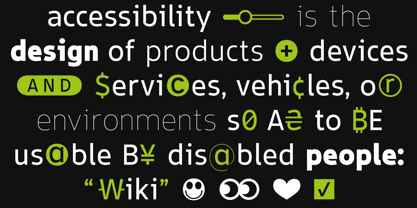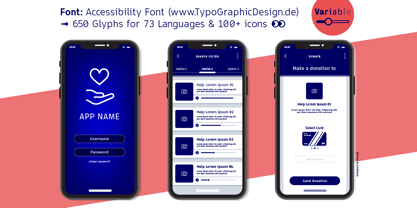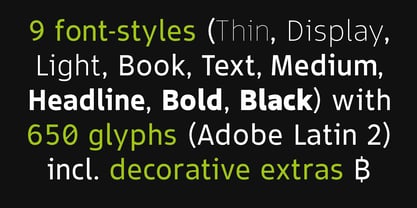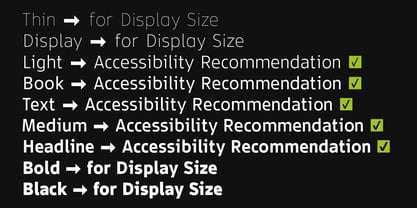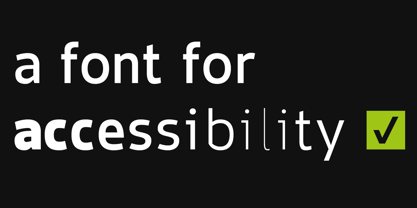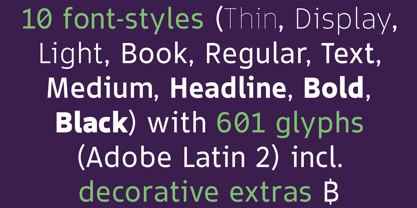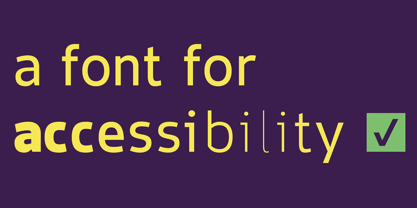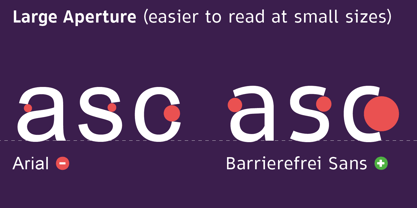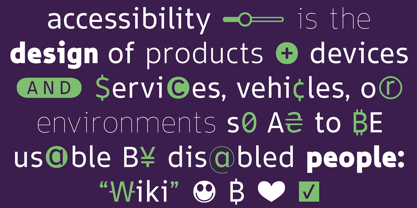
Accessibility Font Variable
by TypoGraphicDesign
The Accessibility Font Variable Font Family was designed by Manuel Viergutz and published by TypoGraphicDesign. Accessibility Font Variable contains 1 styles.
The variable “accessibility font” is designed from 2022–2025 for the font foundry Typo Graphic Design by the type designer Manuel Viergutz for optimized legibility and readability.
9 font-styles (Thin, Display, Light, Book, Text, Medium, Headline, Bold, Black) with 650 glyphs (Adobe Latin 2) incl. decorative extras like icons, arrows, catch words, dingbats, emojis, symbols, geometric shapes (type the word #LOVE for ❤ as OpenType-Feature dlig) and stylistic alternates (2 stylistic sets).
Characteristics of the font are optimized legibility in the form of a large x-Height (easier to read at small sizes), an large apertures (lowercase letter “a” or “e”), a large counter (direct effect on a optimise legibility) and the distinctiveness of individual letter shapes facilitates quick recognition. (l ≠ I or O ≠ 0)
For use in logos, packaging for drinks & food, magazines, posters, advertisement plus as webfont for decorative headlines. The font works best for display size.